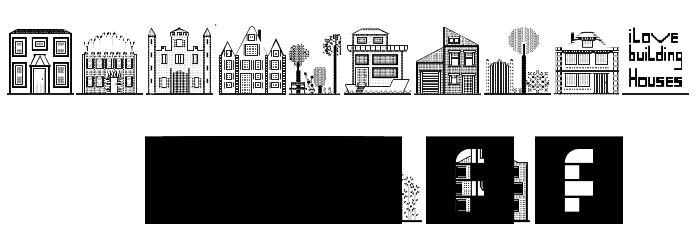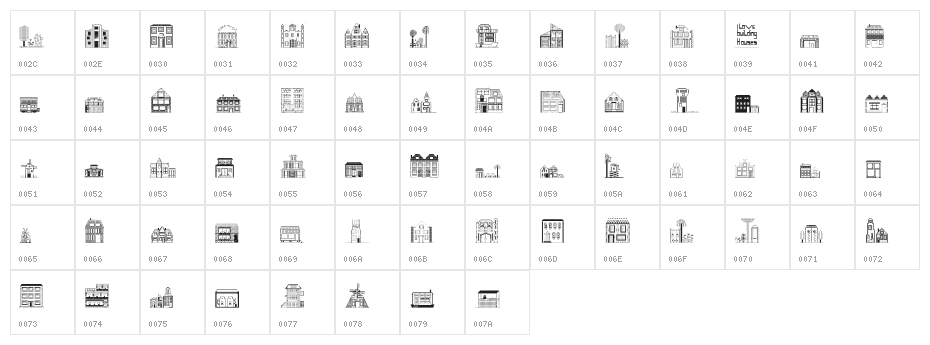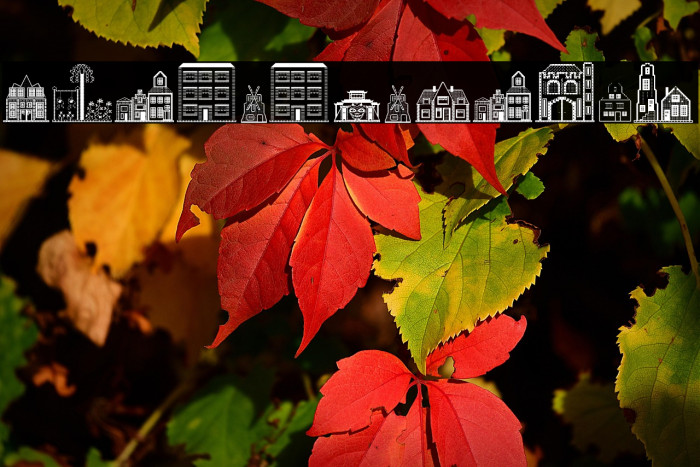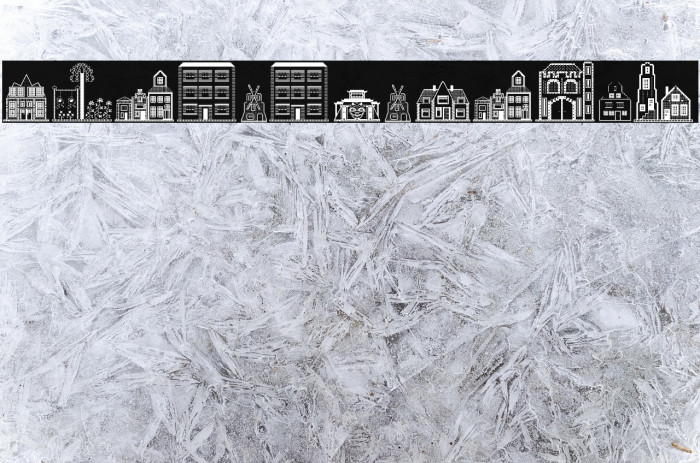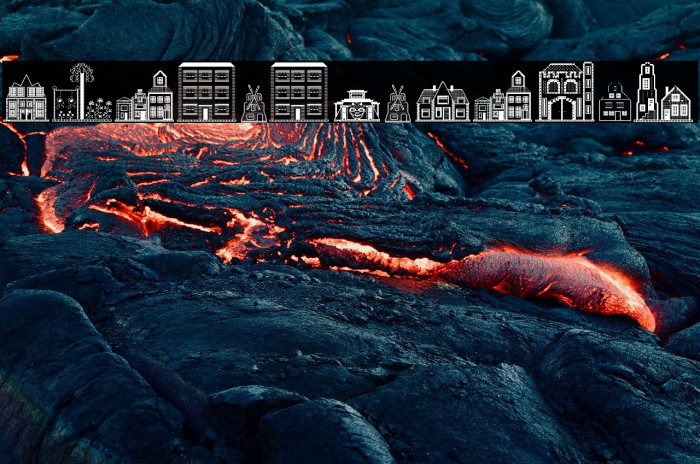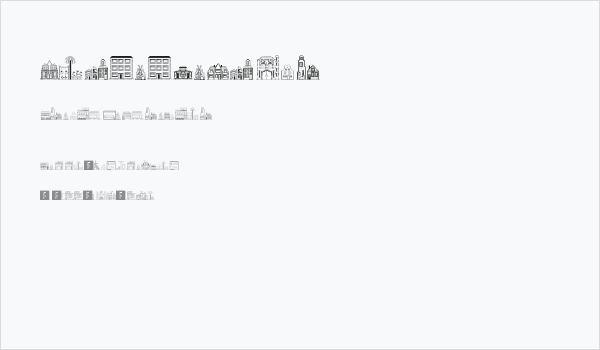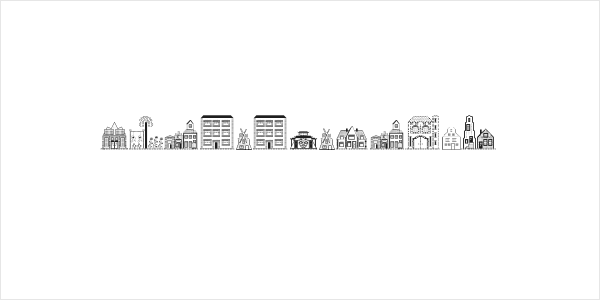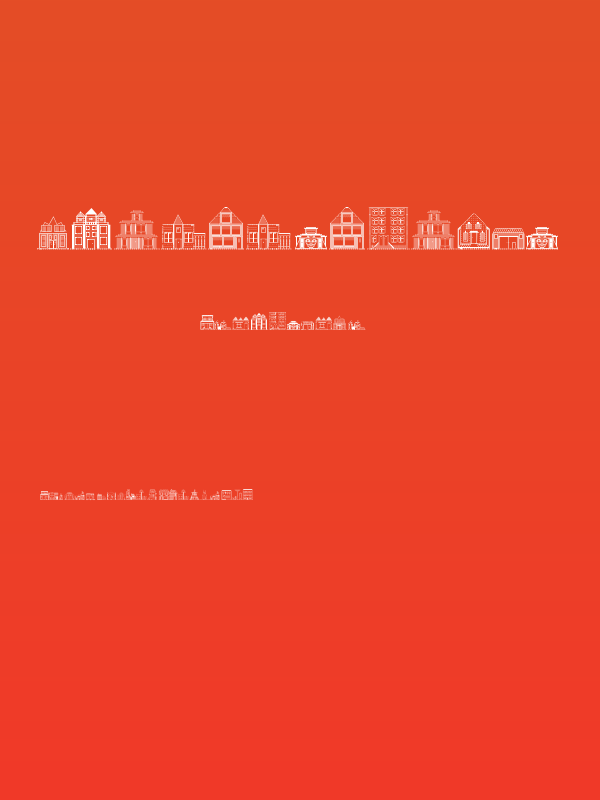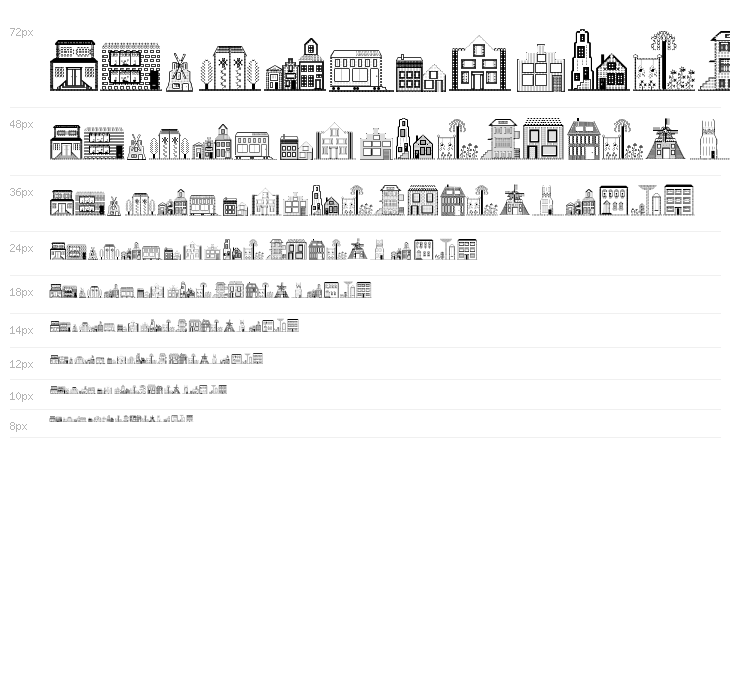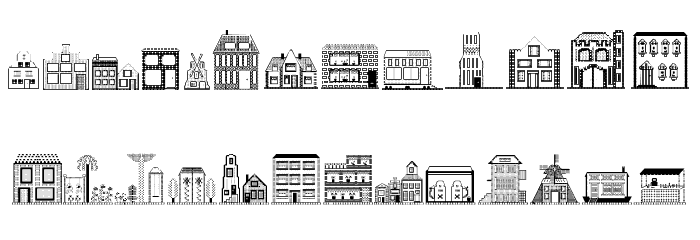
Houses Regular Font
Houses Regular Description
A decorative display font featuring detailed, illustrated house and building glyphs for each character, with a pixel-art or line-art style. The font includes uppercase, lowercase, numbers, and select punctuation, each represented by a unique architectural design.
| Overall Style | Decorative, Playful, Architectural |
| Use Case | Headlines, Posters, Logos, Themed graphics |
| Proposed Projects | Posters, event invitations, children's books, real estate branding, architectural presentations, creative headlines. |